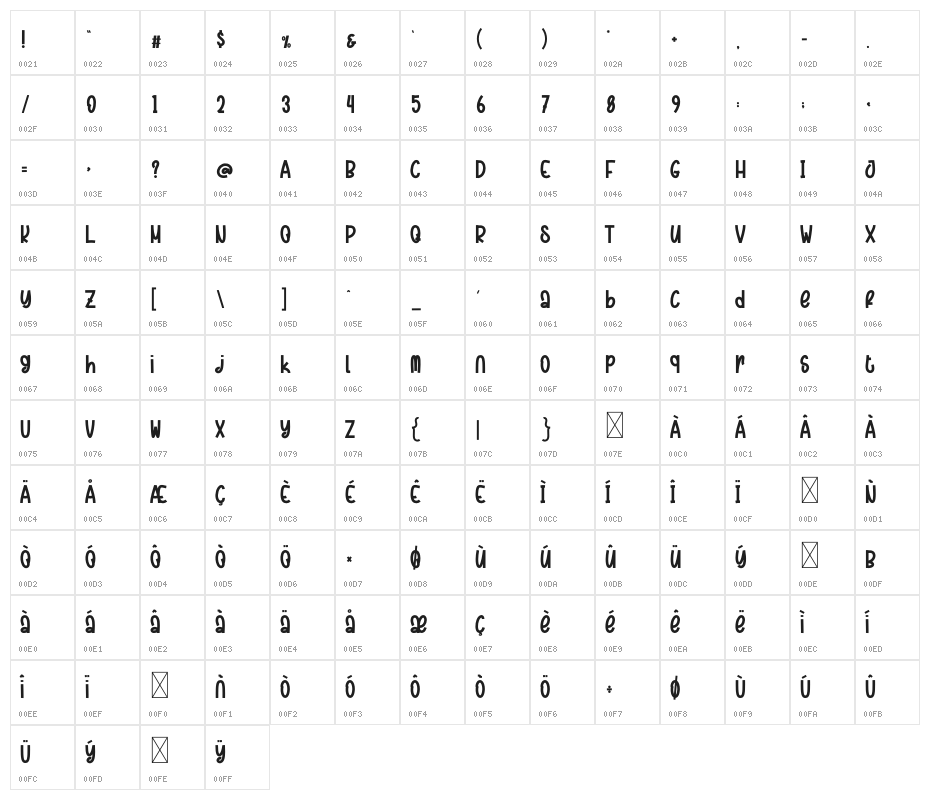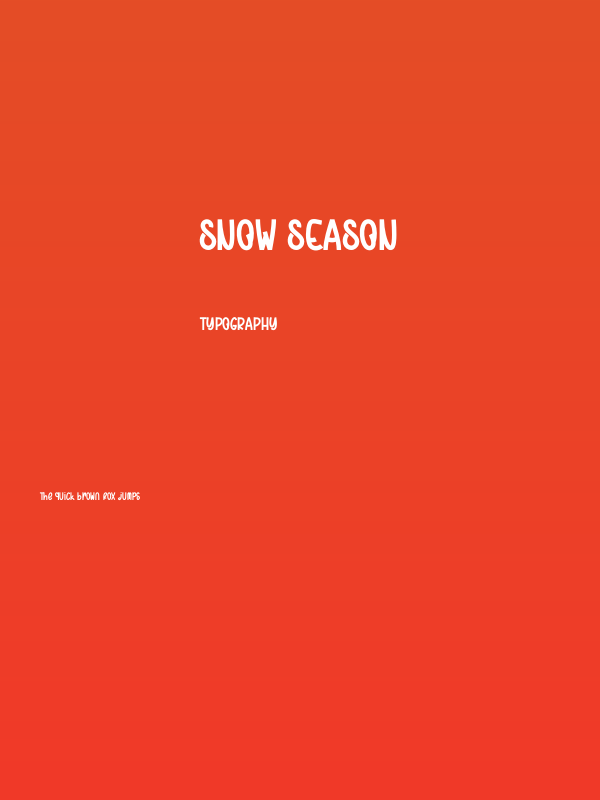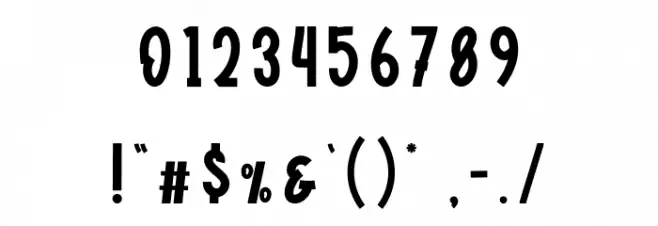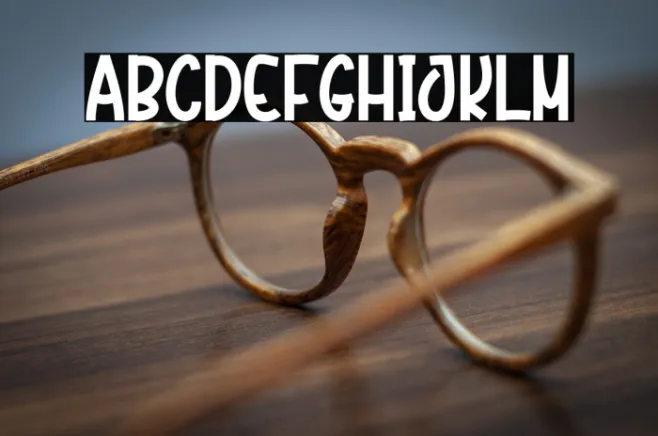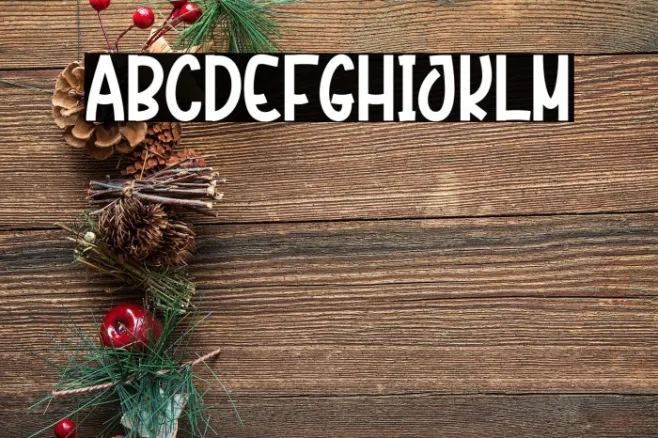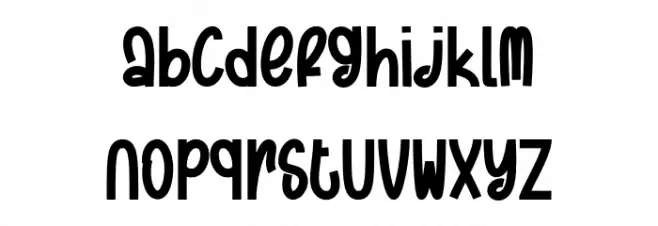
SNOW SEASON Font
SNOW SEASON Description
This font features a playful and bold style with a slightly whimsical touch. The characters are thick and rounded, giving them a friendly and approachable appearance. The uppercase and lowercase letters maintain a consistent width, while the numbers and special characters are designed to match the overall aesthetic. The font's unique character shapes, such as the curved 'E' and the distinctive 'G', add to its charm. It is well-suited for projects that require a fun and engaging look.
| Proposed Projects | Ideal for children's books, playful branding, event posters, and creative invitations. |